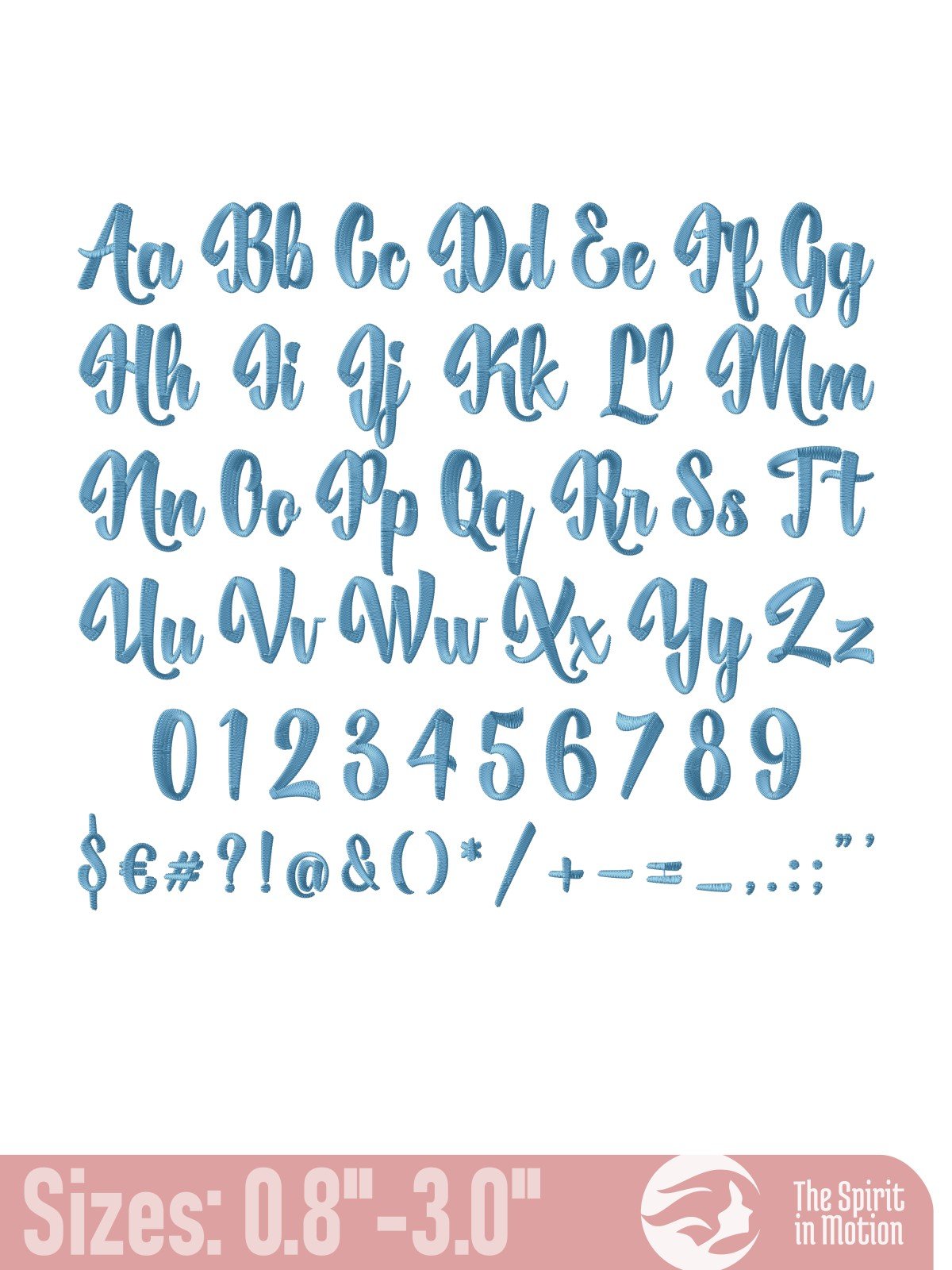
Historise Regular Embroidery Font
Historise is a stylish script embroidery font with elegant, flowing letterforms that add a handmade, calligraphic touch to your creations. Digitized for smooth satin stitches and clean curves, this font is perfect for monograms, wedding gifts, personalized apparel, bags, and home décor. Whether you’re decorating garments, linens, or accessories, Historise brings a refined, artistic flair to names, quotes, and design accents.